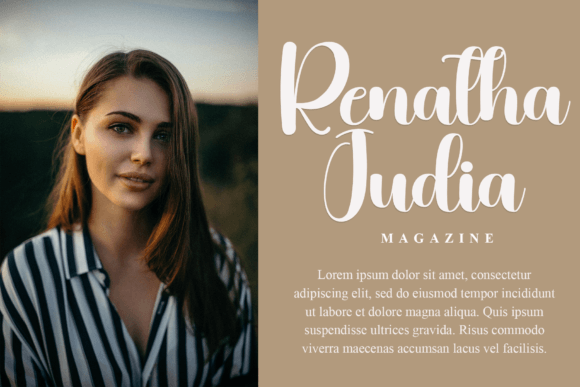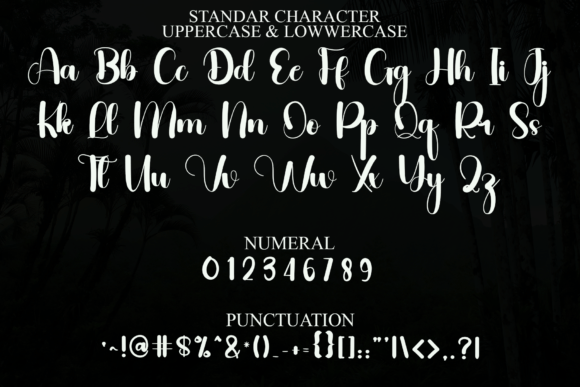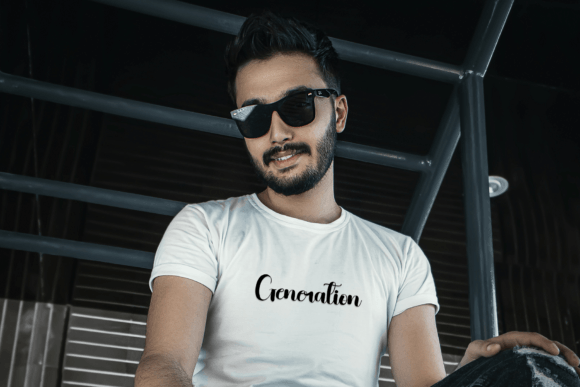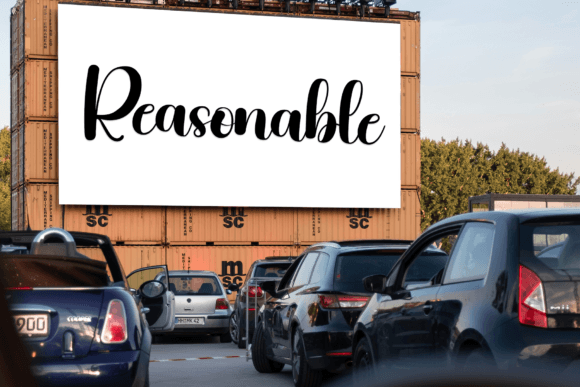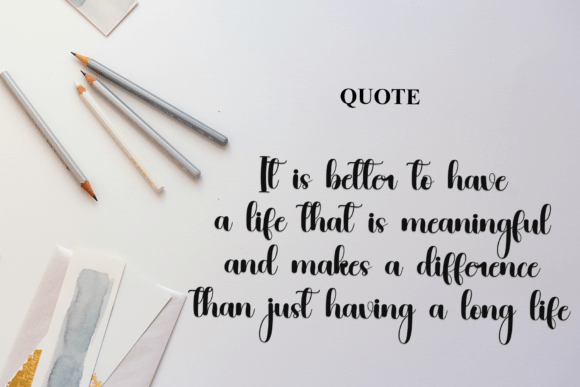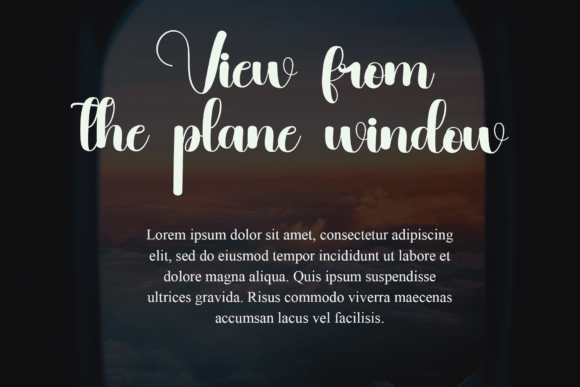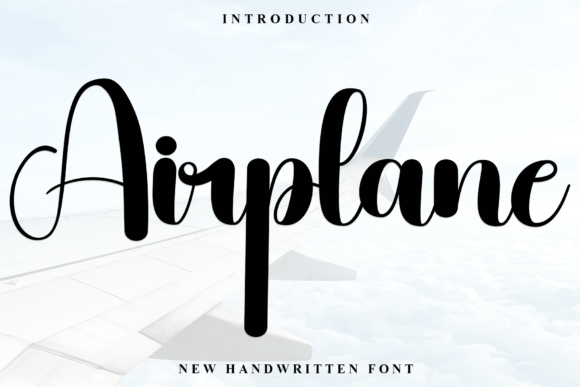
Introducing Airplane Font: Elevate Your Designs with a Touch of Freshness and Elegance
Are you on the hunt for a font that embodies the perfect blend of freshness, casual elegance, and a laid-back vibe? Look no further than Airplane Font. This charming handwritten font is designed to add a touch of warmth and personality to various design projects, making it an excellent choice for designers and crafters alike.
The Characteristics of Airplane Font
Airplane Font boasts fluid strokes and organic lines that give it a unique, handcrafted feel. Its casual elegance is perfect for creating designs that require a personal touch, such as:
• Branding materials: logos, business cards, and letterheads
• Invitations: wedding invites, birthday party invitations, and other celebratory events
• Social media graphics: posts, stories, and ads that require a personal and engaging touch
Why Choose Airplane Font?
Airplane Font is more than just a font; it’s a design element that can elevate your projects and make them stand out. Here are some reasons why designers and crafters love Airplane Font:
• Versatility: Airplane Font can be used for a wide range of design projects, from formal to informal, and still manage to make a great impression.
• Elegance: The font’s fluid strokes and organic lines give it a sophisticated and elegant feel that’s perfect for high-end designs.
• Readability: Airplane Font is easy to read, making it perfect for body text, headings, and titles.
• Uniqueness: Airplane Font has a distinct personality that sets it apart from other fonts, ensuring your designs will be memorable and engaging.
How to Use Airplane Font in Your Designs
Airplane Font is easy to incorporate into your designs, and here are some tips to get you started:
• Pair it with other fonts: Airplane Font pairs well with other fonts, such as sans-serif fonts, to create visually appealing combinations.
• Experiment with colors: Airplane Font looks great in a variety of colors, from bold and bright to soft and pastel.
• Play with textures: Add texture to your designs by combining Airplane Font with different textures, such as watercolor or wood grain.
Whether you’re a seasoned designer or a crafter looking to add a personal touch to your projects, here are some tips for using Airplane Font:
• Keep it simple: Airplane Font is perfect for simple, yet elegant designs. Avoid over-complicating your designs and let the font shine.
• Be creative: Airplane Font is a versatile font that can be used in a variety of creative ways. Experiment with different colors, textures, and design elements to create unique designs.
• Use it consistently: Use Airplane Font consistently throughout your design to create a cohesive and professional look.
Airplane Font is a charming handwritten font that’s perfect for designers and crafters looking to add a touch of freshness and elegance to their projects. With its fluid strokes, organic lines, and laid-back vibe, Airplane Font is sure to elevate your designs and make them stand out. Whether you’re creating branding materials, invitations, or social media graphics, Airplane Font is an excellent choice.